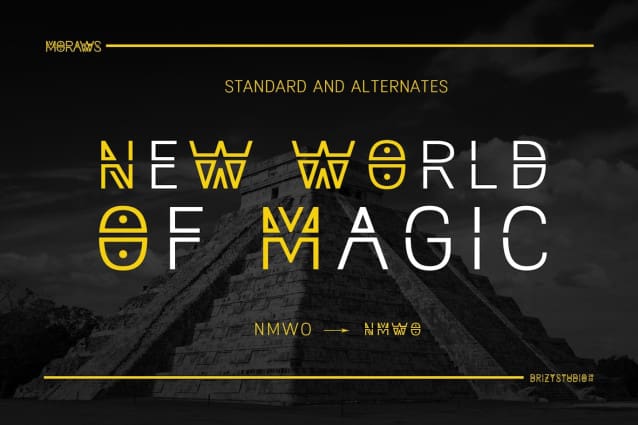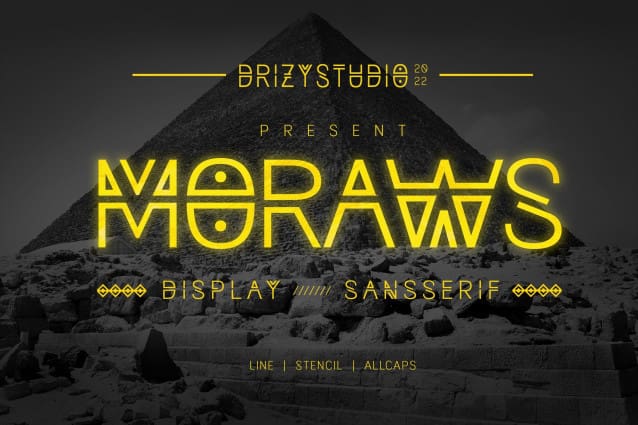
Moraws Font
Moraws Font! an ethnic Stencil San Serif font by Drizy! It suits the ethnic theme of your project. Moras Features: Upper and lower case Number Multilingual Substitutes Ligatures and punctuations